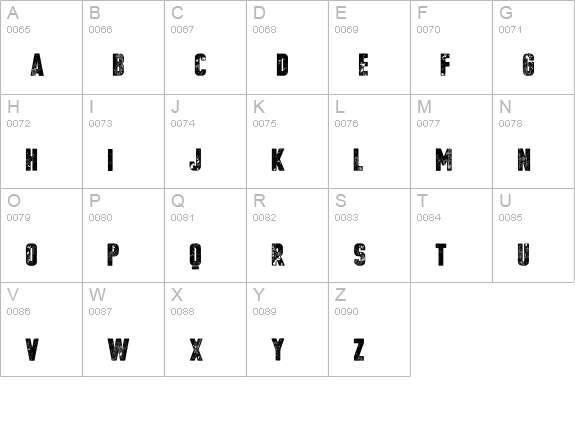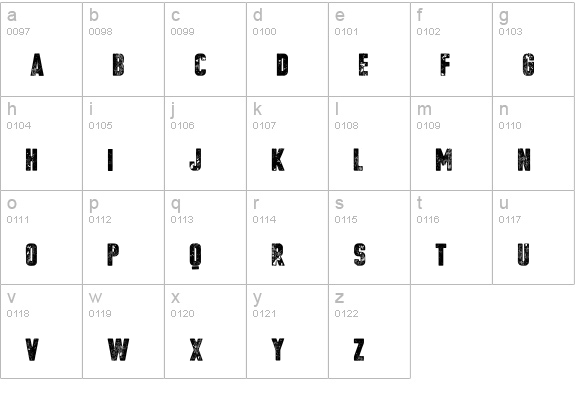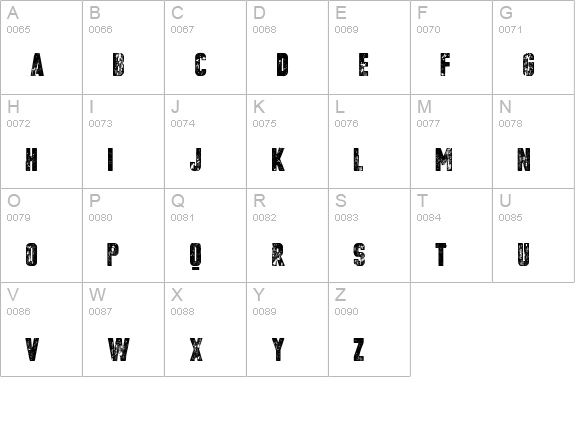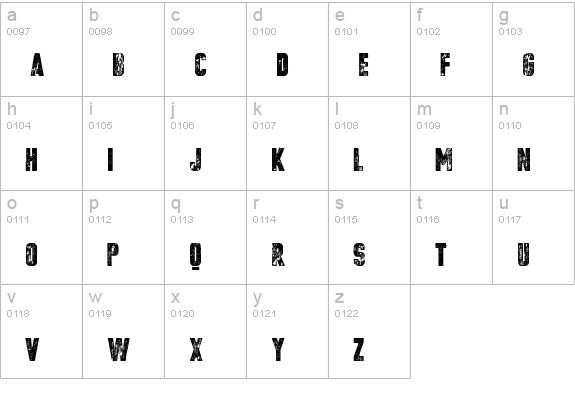
vtks poster Font Details
The VTks Poster font is a stunning display typeface that exudes a unique vintage charm. With its bold and distinctive letterforms, this font is perfect for creating eye-catching posters, banners, and signage that demand attention. This font boasts a wide range of characters, including uppercase letters, lowercase letters, numbers, punctuation marks, and special symbols, ensuring versatility in your design projects. Each character is meticulously crafted, featuring intricate details and a strong visual impact. One of the best things about the VTks Poster font is that it is available for free download at FontsMarket.com. This means that you can easily access this amazing font without any cost, making it a valuable addition to your typography collection. Whether you are a graphic designer, a typographer, or simply someone who appreciates high-quality fonts, the VTks Poster font is a must-have. Its bold and striking design will add a touch of elegance and sophistication to any project, making it stand out from the crowd. So, why wait? Head over to FontsMarket.com now and grab your free download of the VTks Poster font. Unleash your creativity and let this font take your designs to new heights.